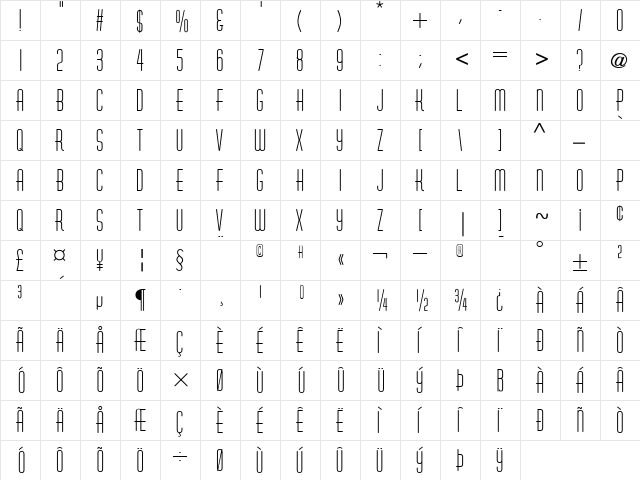
Astaire-Plain Regular
Design Context for Astaire-Plain Typeface
Astaire-Plain is a composed and adaptable typeface that performs quietly and consistently across a wide range of design contexts.
Pro Tip: Use Astaire-Plain in both headline and body roles to test its range before committing to a single application.